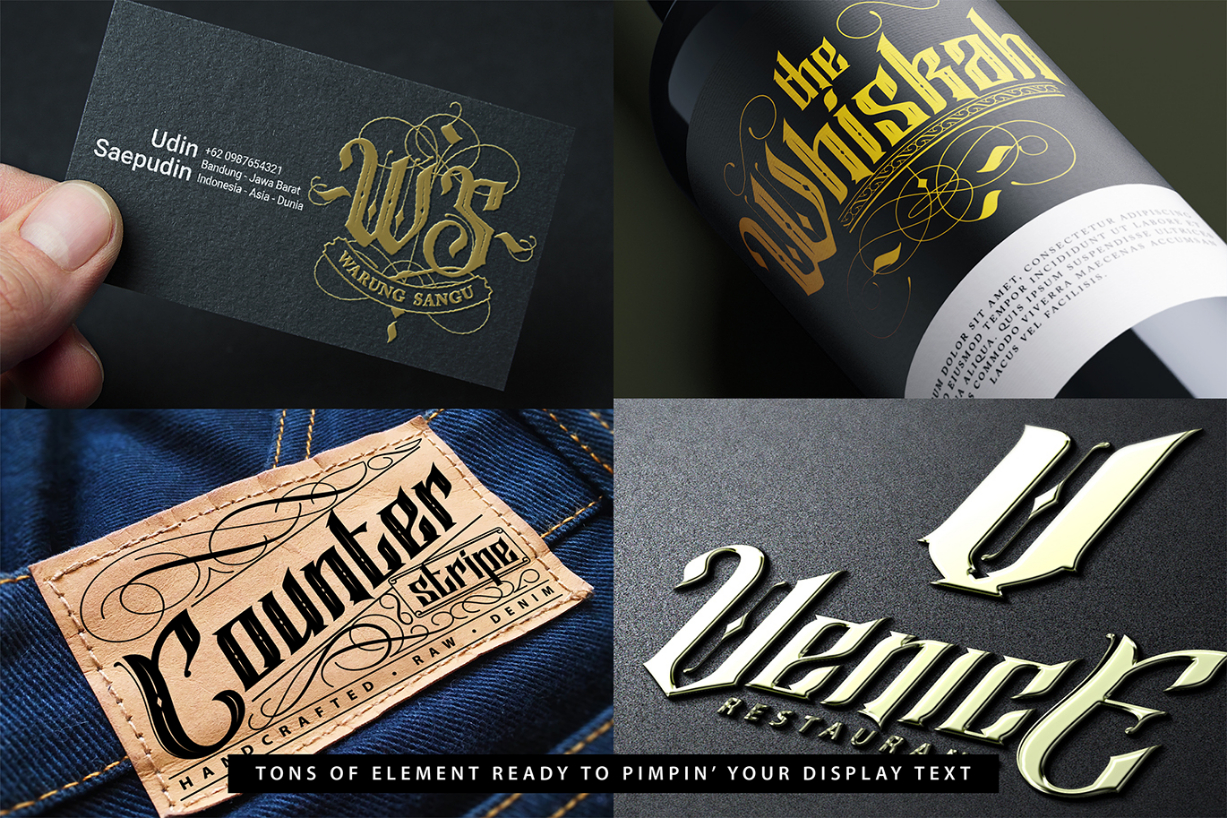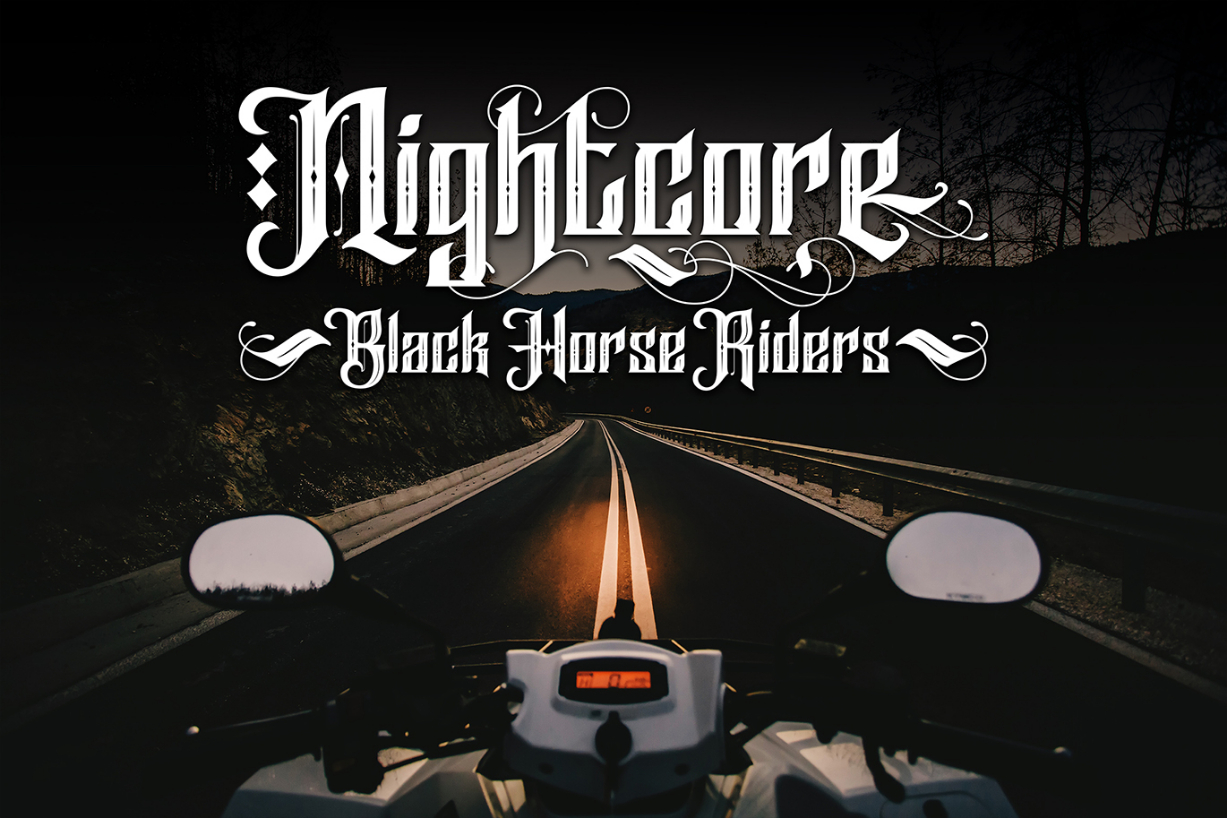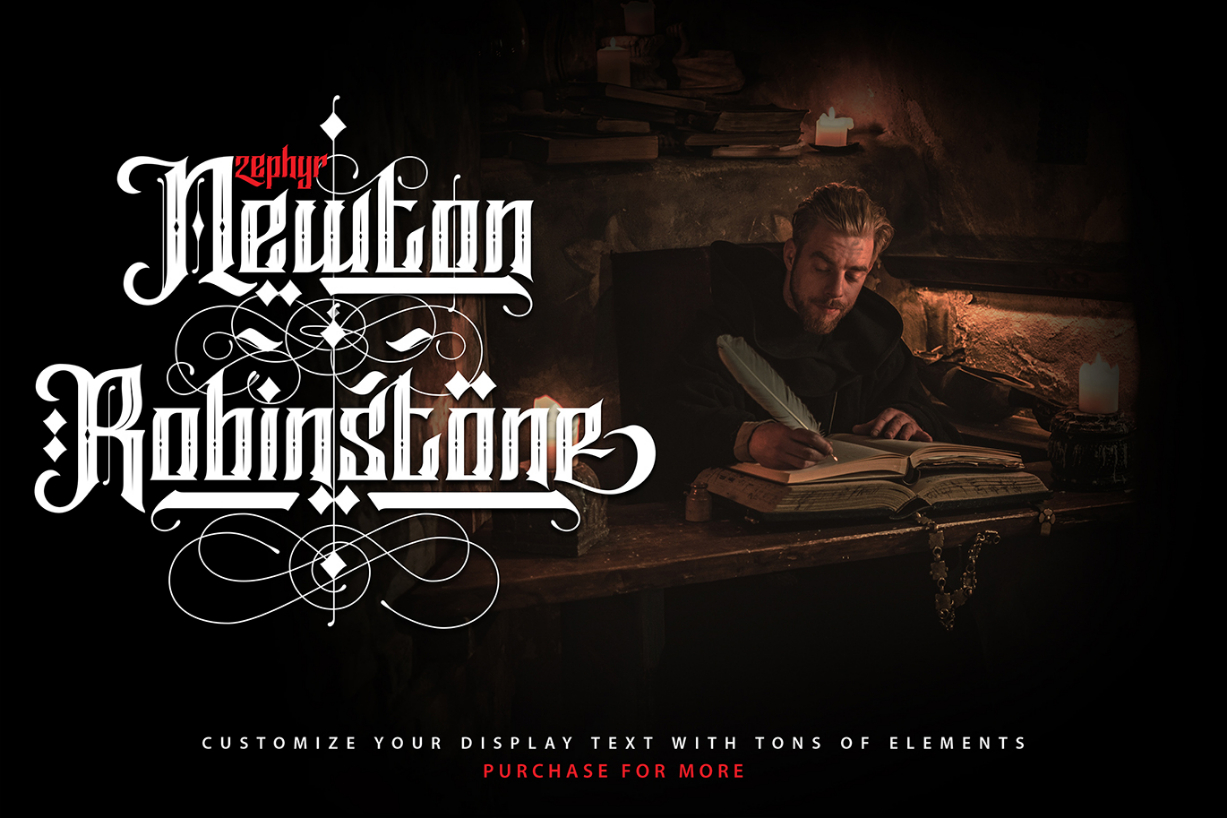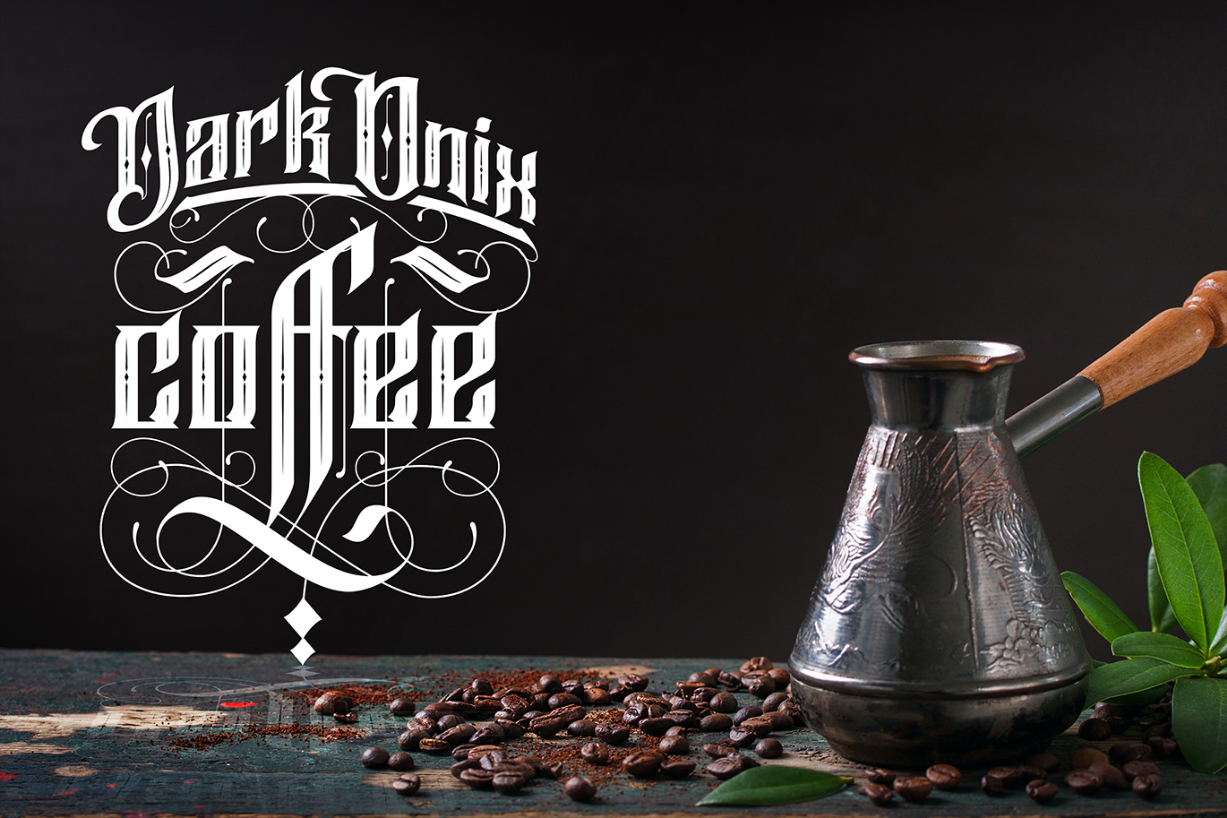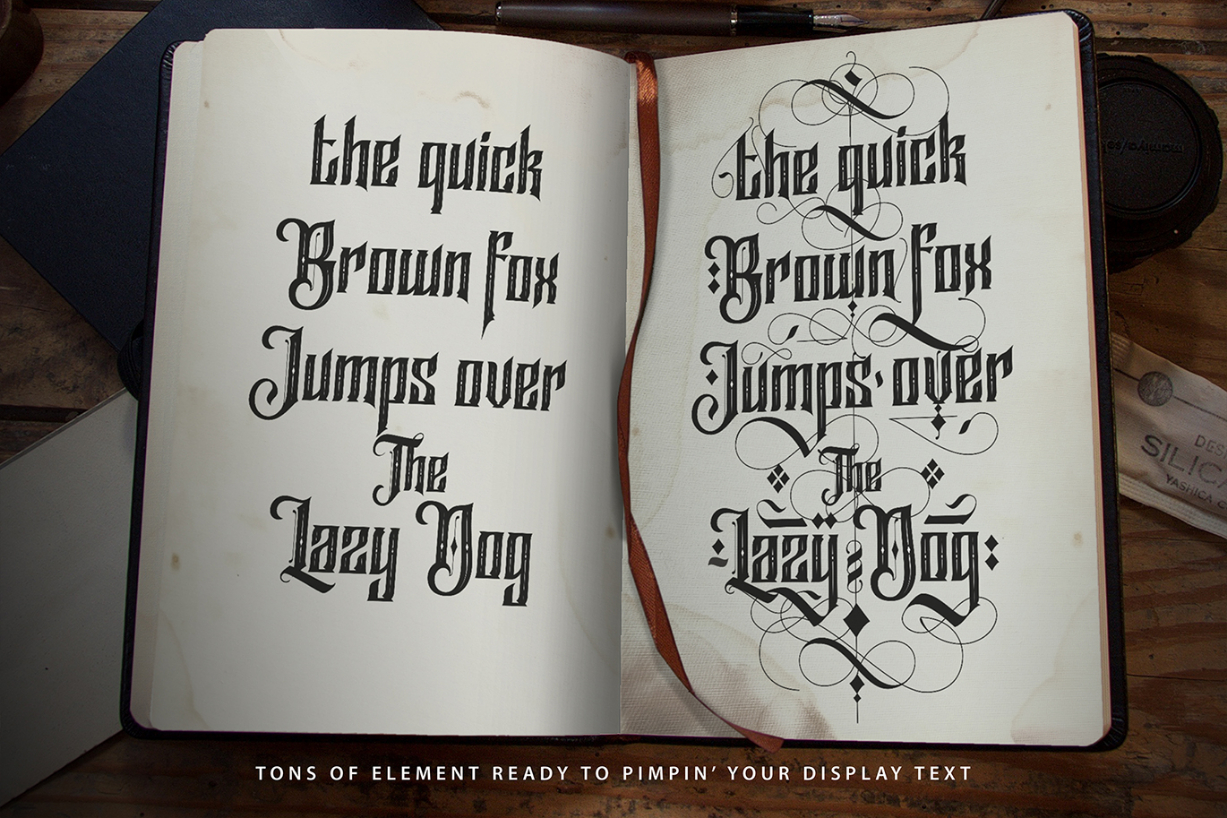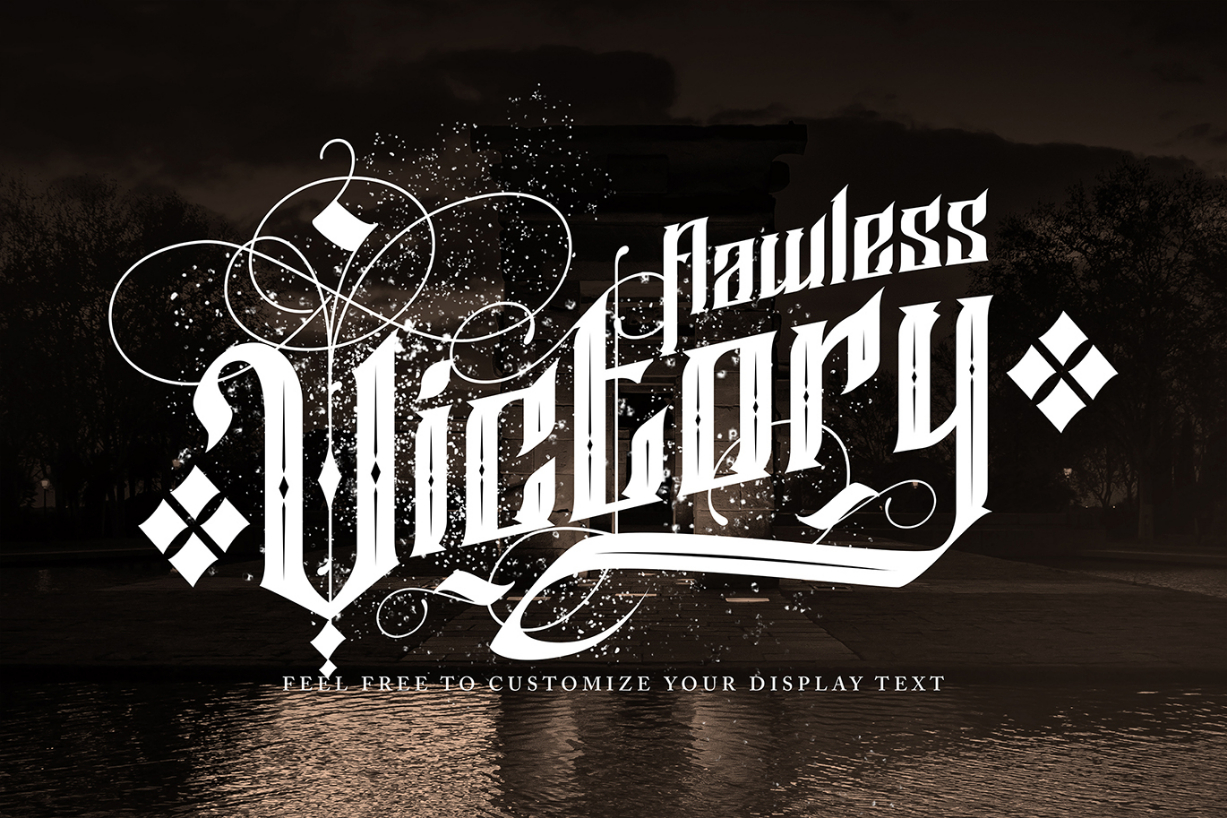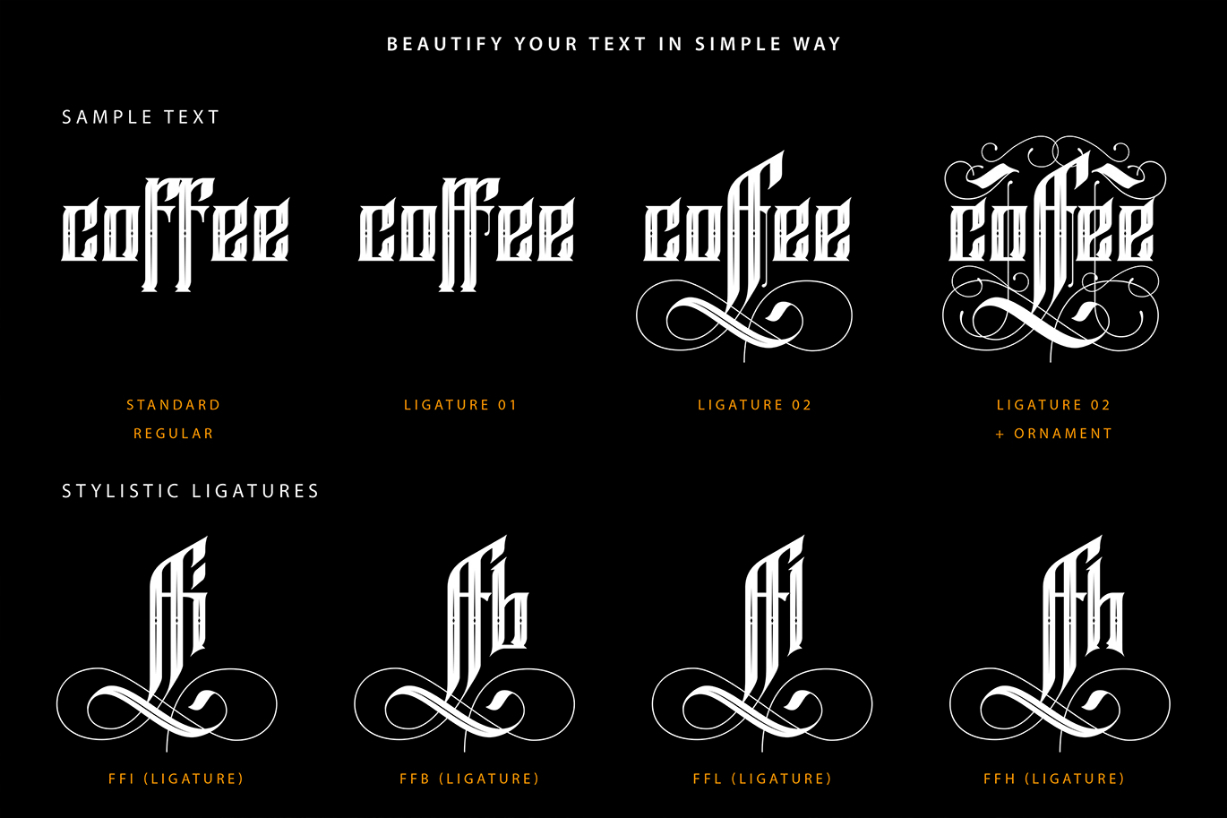
Fireflight Font
About Fireflight Font
Fireflight is a bold and original blackletter font with a unique style. It will turn any design idea into an eye-catcher!